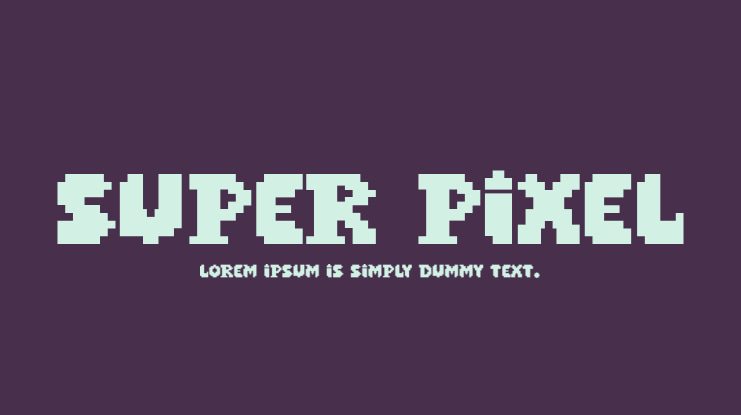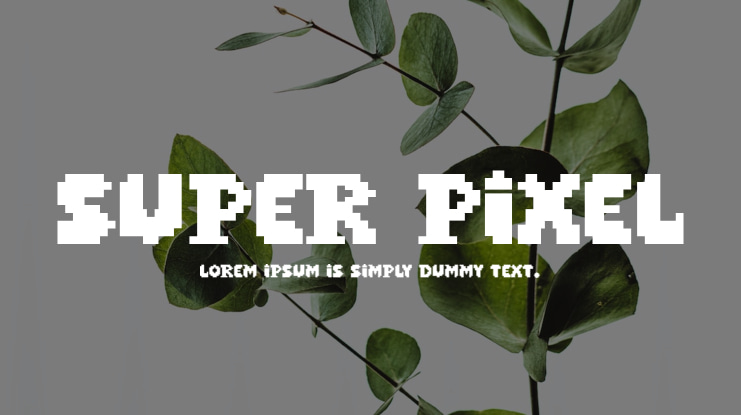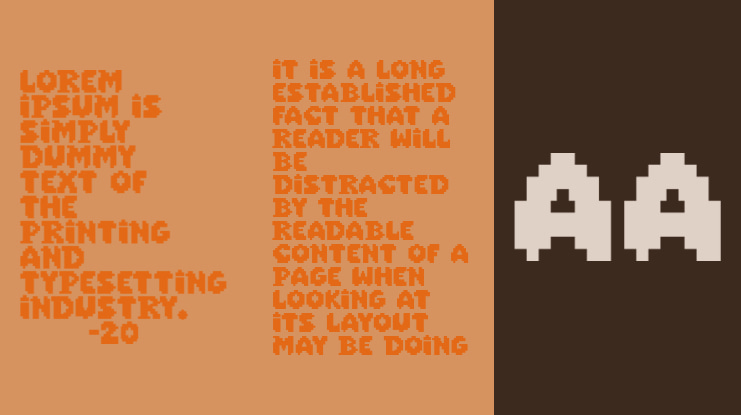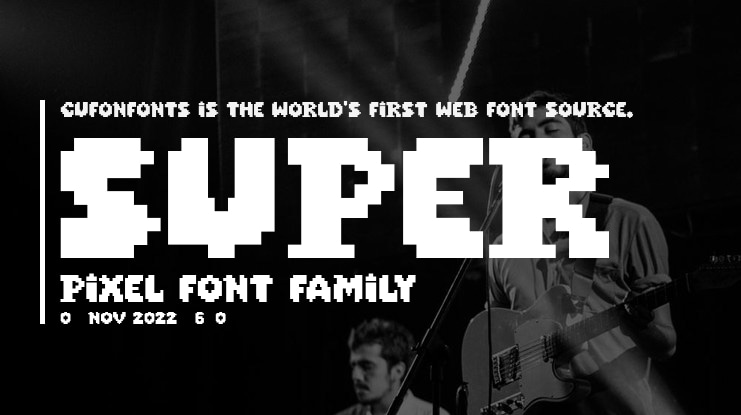
Super Pixel Font
This font is for PERSONAL USE ONLY!.If you want to use this font for commercial purposes, you will need to purchase a commercial license. You can purchase a commercial license at https://allsuperfont.com/product/super-pixel/Super Pixel: Where Fancy, Bold, and Unique Pixels CollideSuper Pixel isn't your average pixel font. It's a bold statement for those who crave uniqueness. It's where playful fancy meets uncompromising strength, all rendered in the charming grit of pixels.